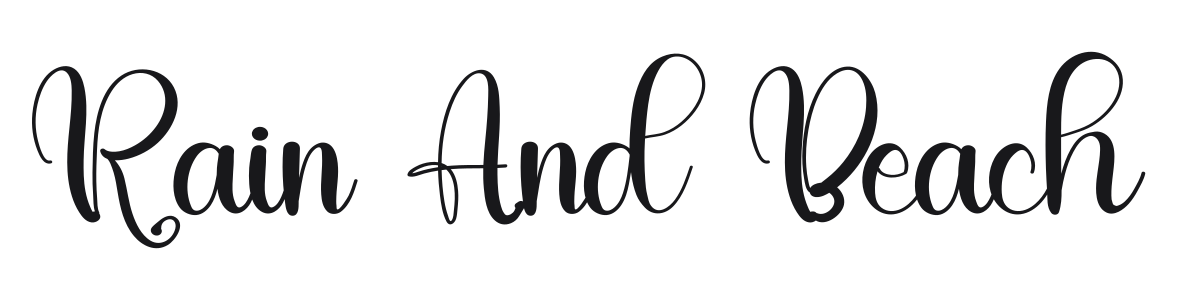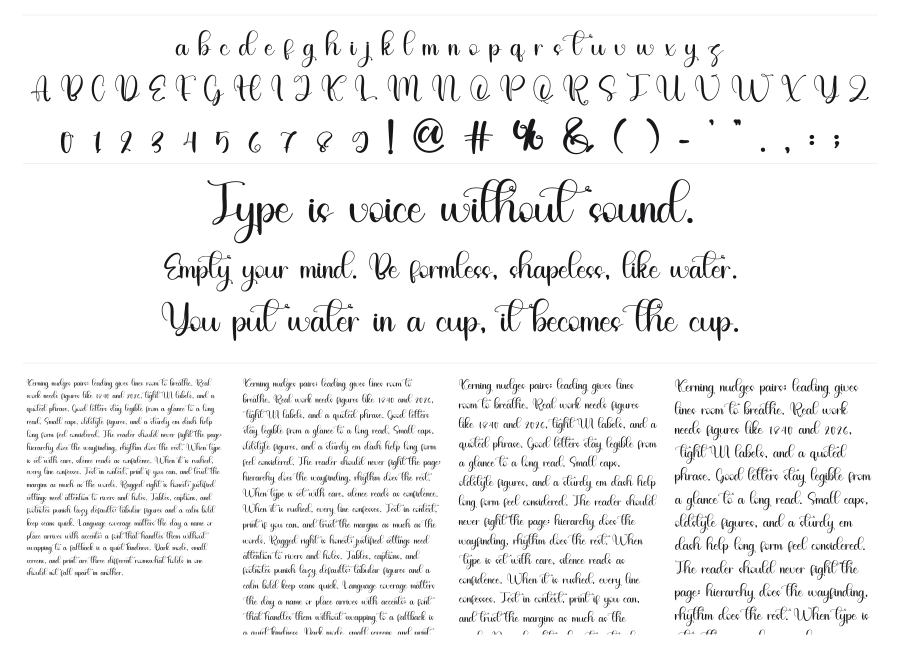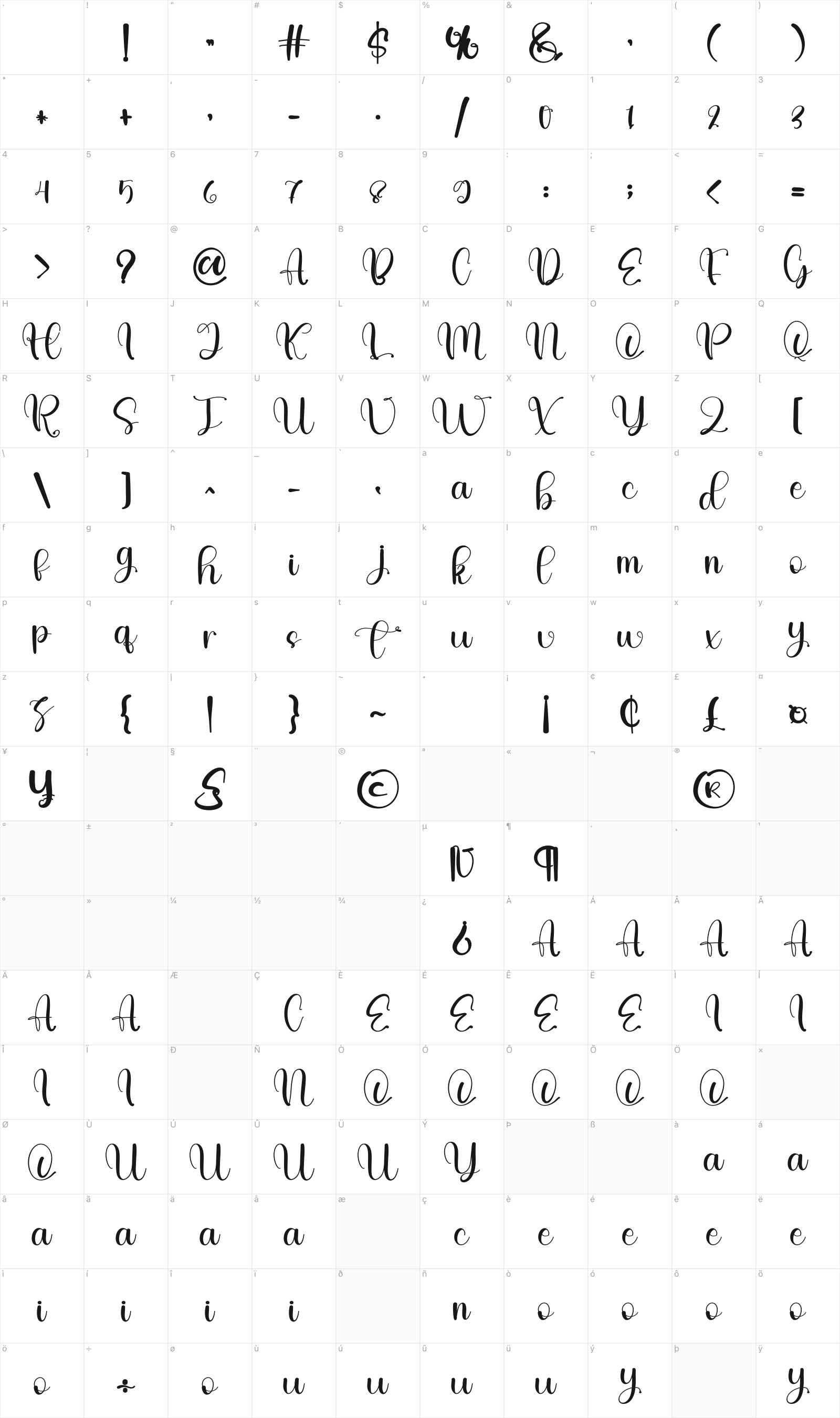
Rain And Beach
Rain And Beach is a lively casual script with a bouncing baseline and warm, hand-lettered energy. Sweeping strokes, looping ascenders, and curling terminals give it a naturally cheerful character that feels both polished and personal. It suits branding, packaging, and any project that calls for an inviting, handmade quality.